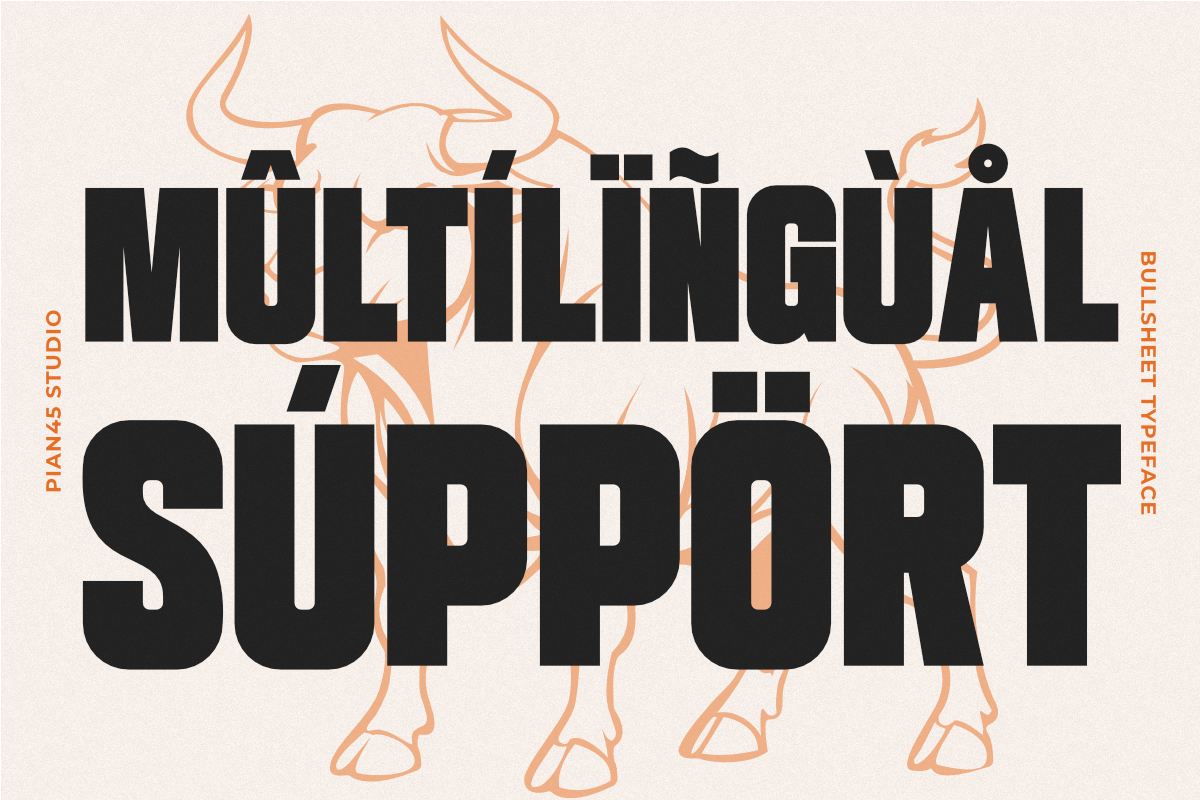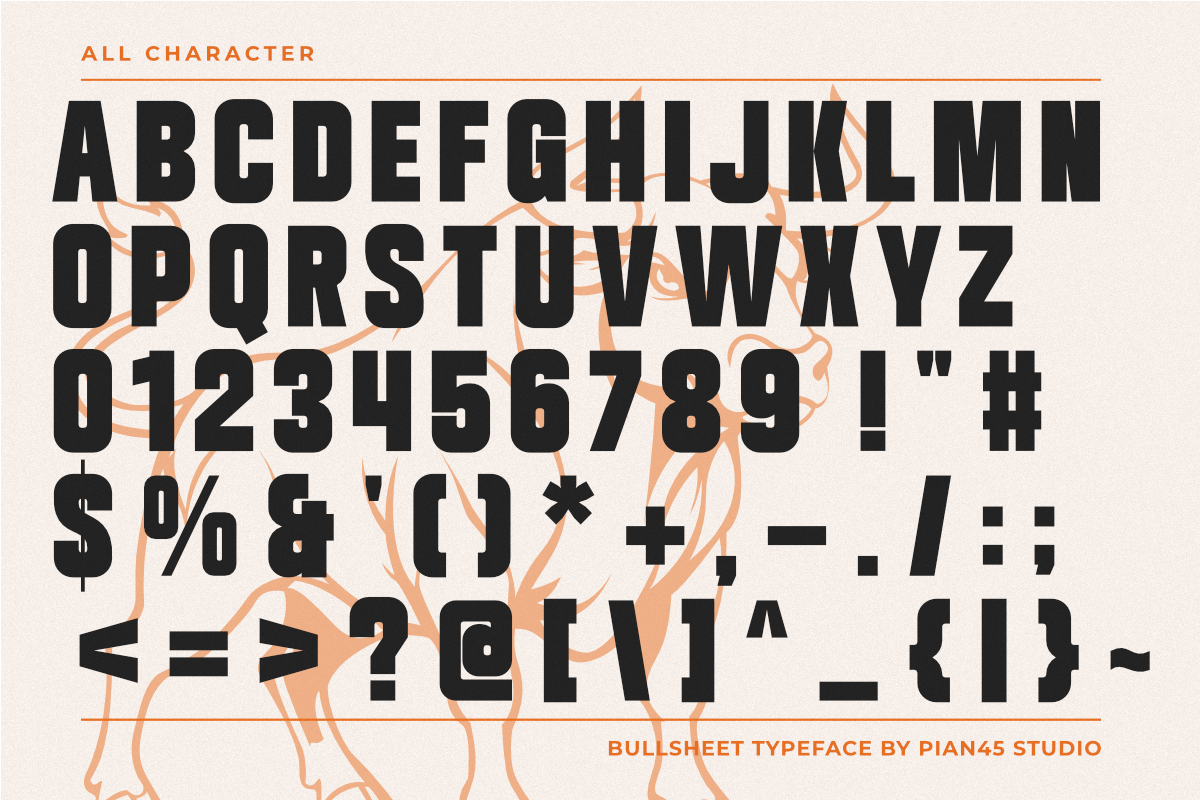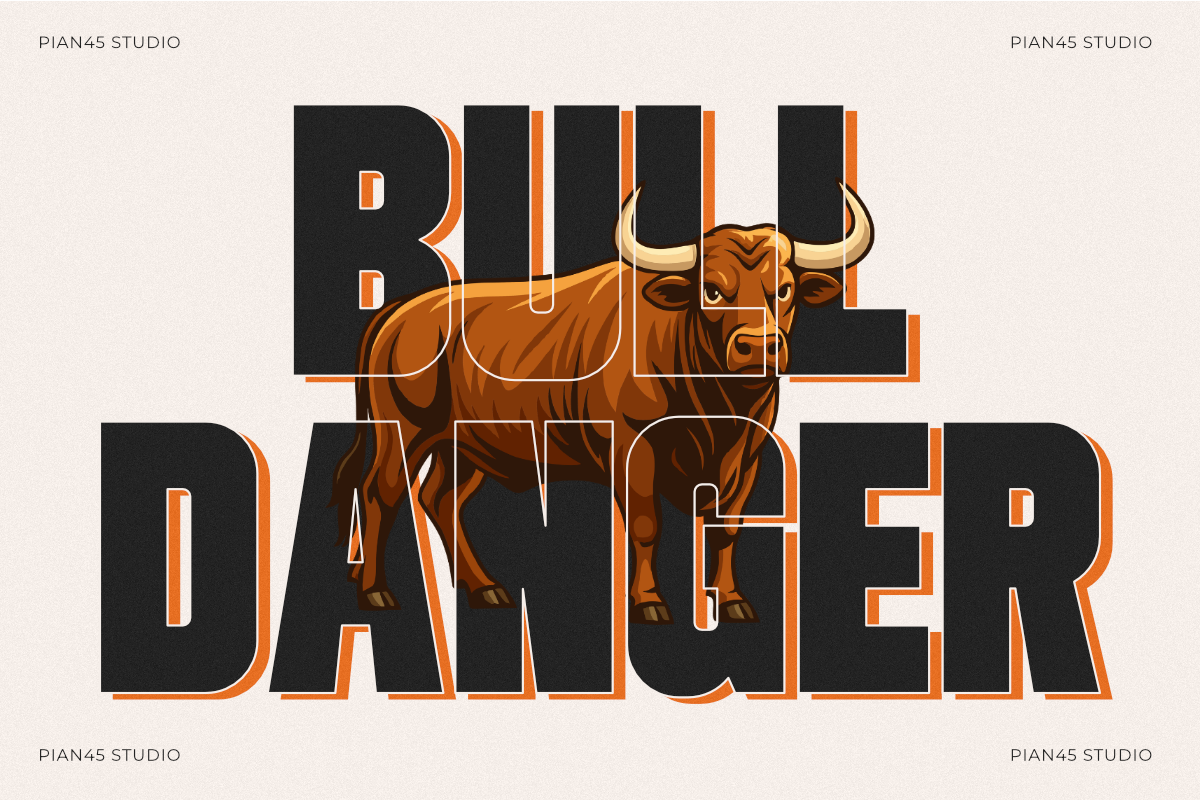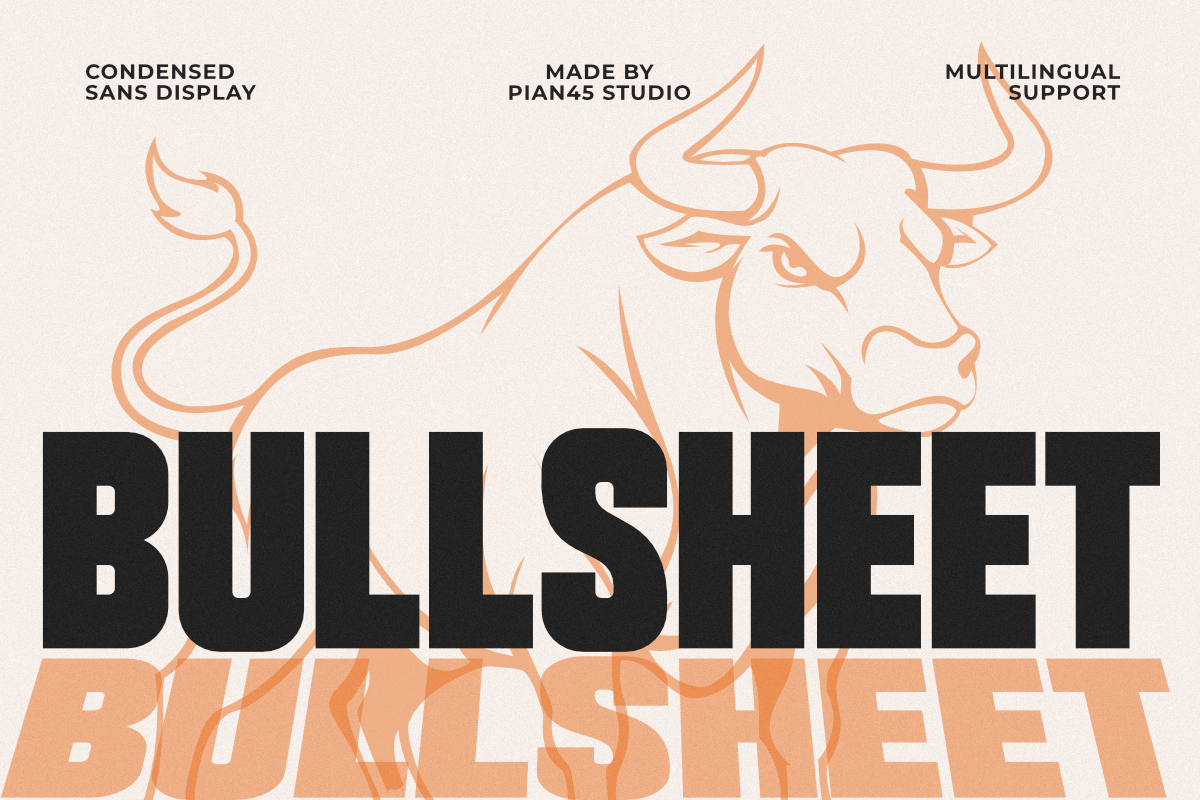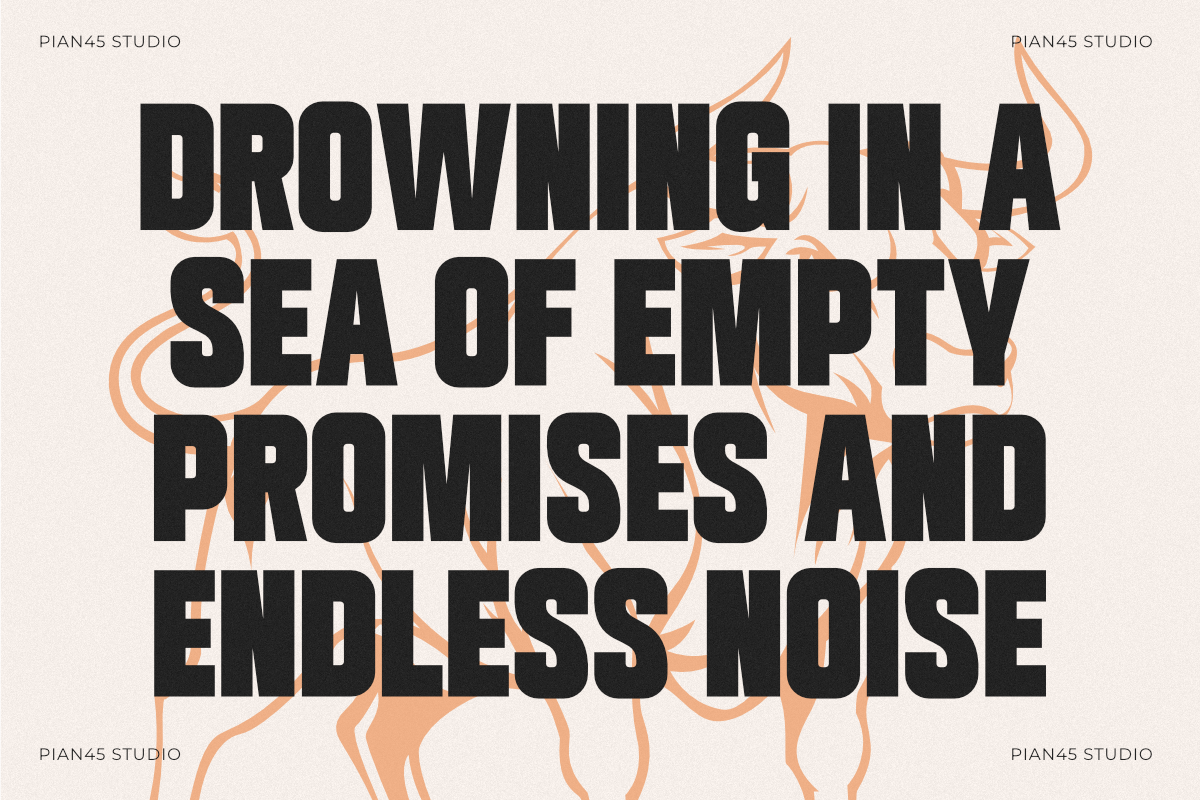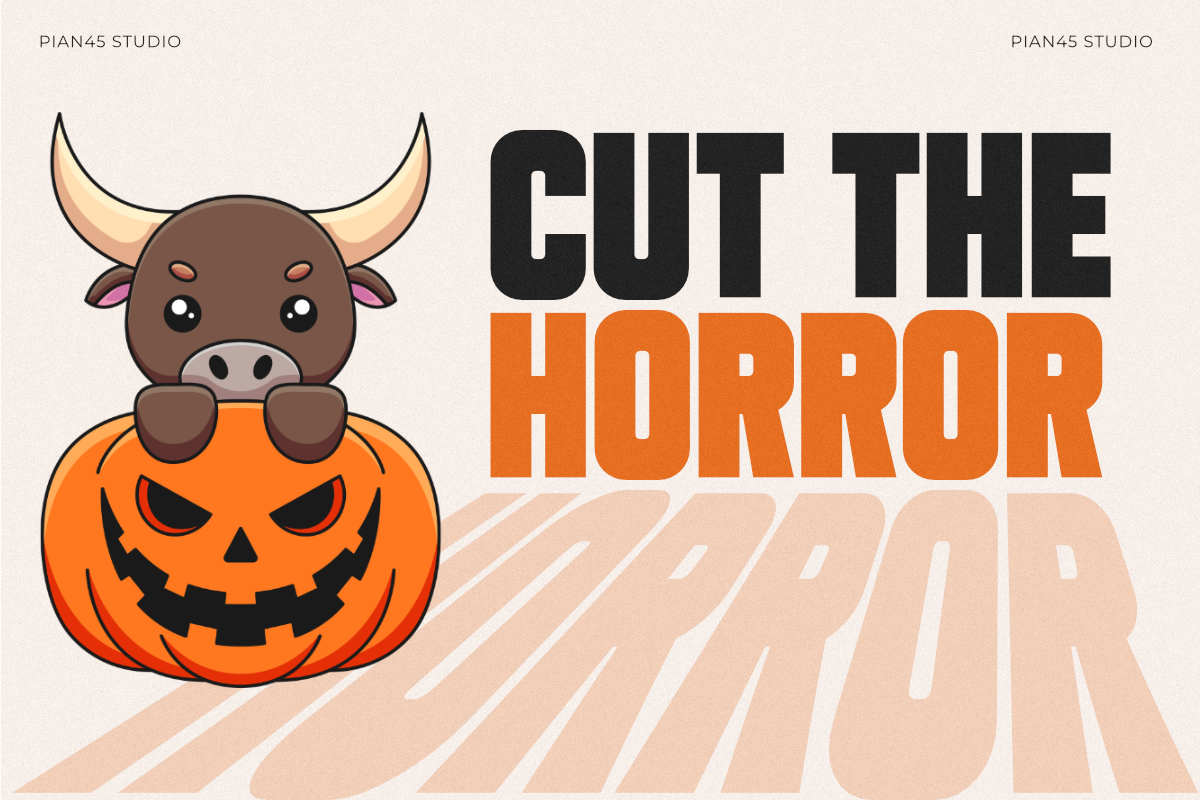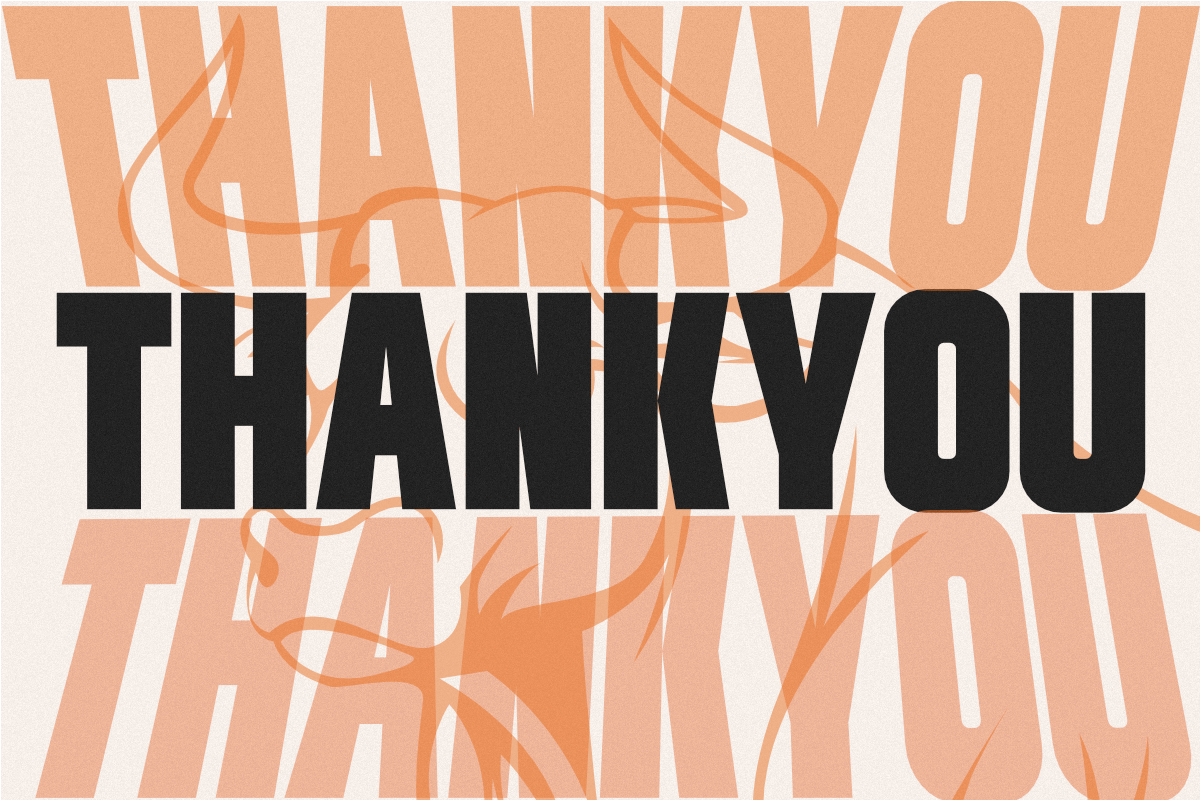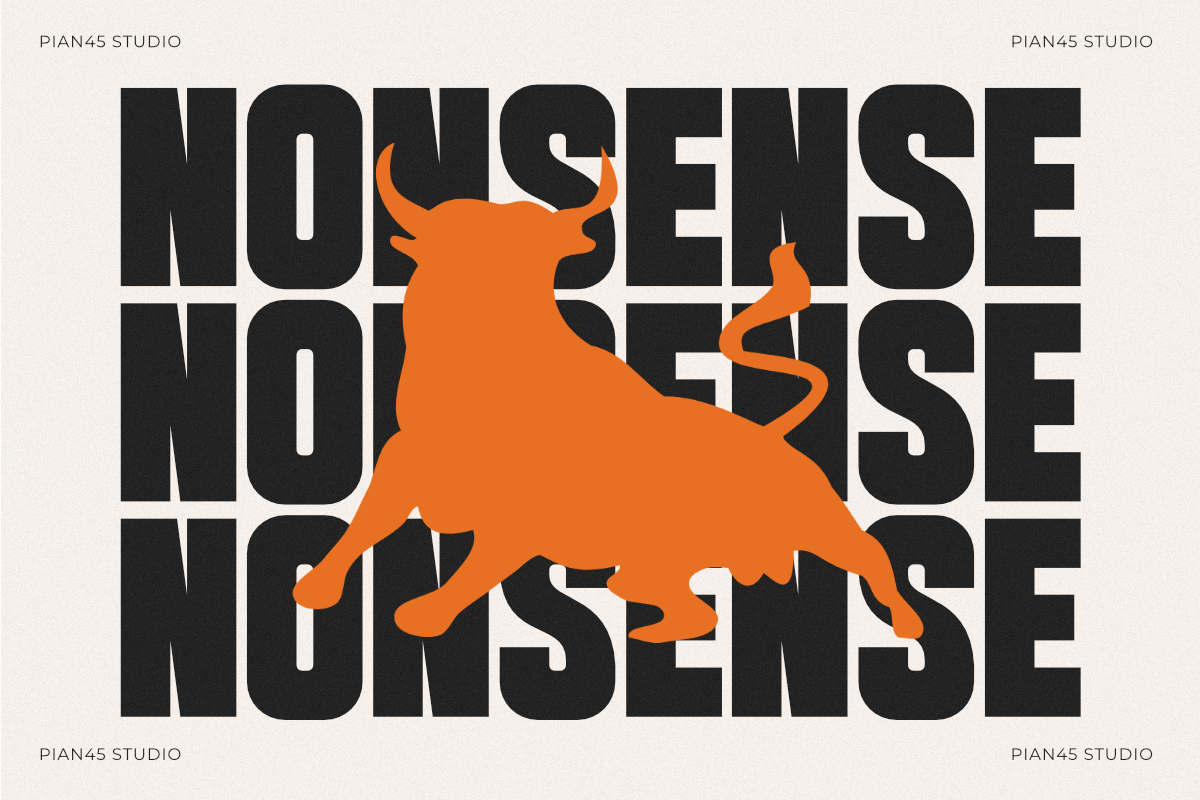
Bullsheet - Bold Condensed Sans Font
Bullsheet is a heavy, commanding Condensed Sans Display font engineered to embody the raw strength, power, and aggressive energy of bull mascot branding and athletic competition. Built with ultra-bold geometric block letterforms, space-saving narrow proportions, sharp chamfered cuts, and full multilingual support, this all-caps typeface is crafted for sports team logos, athletic apparel, gym merchandise, esports graphics, and urban streetwear lines. Its massive visual weight and solid structure guarantee maximum legibility in tight layouts, making it the ultimate tool for high-visibility headlines, tournament posters, custom t-shirt designs, and digital marketing banners.